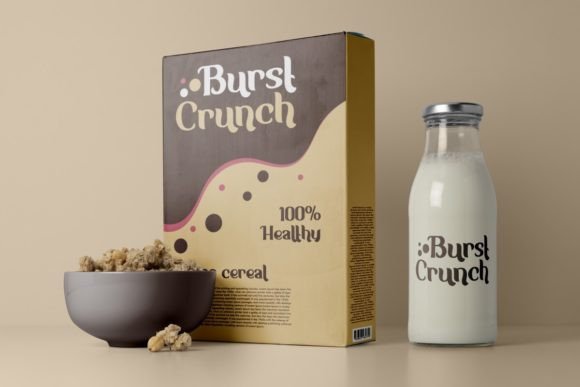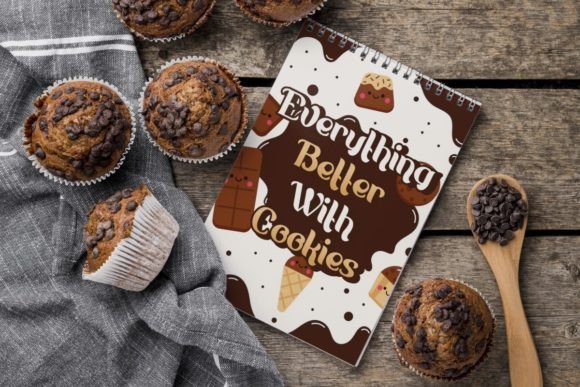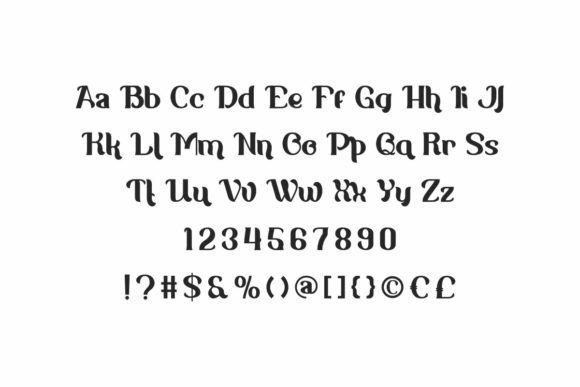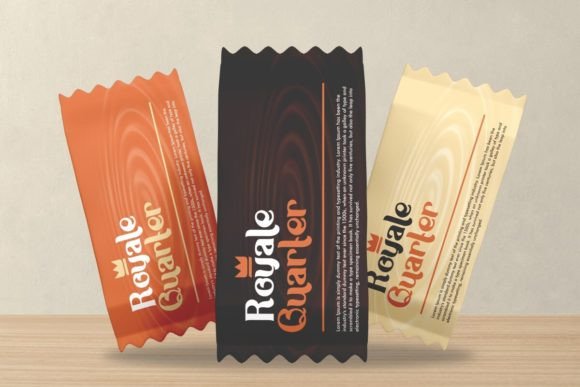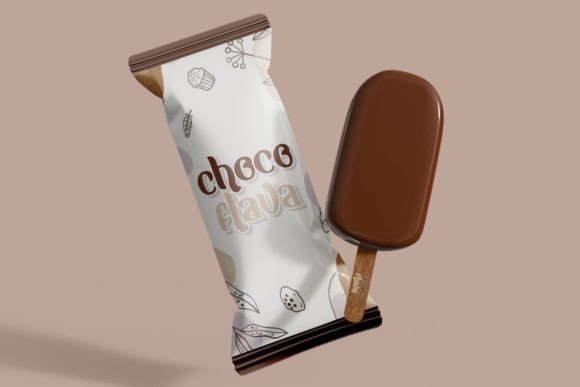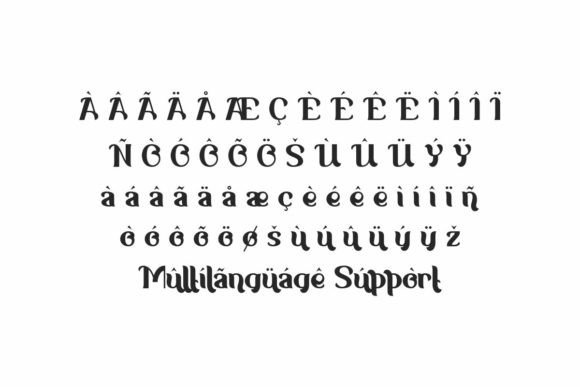
The Sweet Spot: Discovering Choco Truffle Font
I’ll never forget the time I was working on a branding project for a new dessert shop. My client wanted a font that was playful, yet sophisticated, and I was determined to find it. After hours of scrolling through font libraries, I stumbled upon Choco Truffle Font. It was love at first sight! 💕
This charming display font has a special fun style that’s perfect for adding a touch of whimsy to your designs. With its beautiful bold variation, Choco Truffle Font is sure to give your projects a fun and stylish look.
What Makes Choco Truffle Font Special?
So, what sets Choco Truffle Font apart from other fonts out there? Here are a few things I love about it:
- ✨ Playful and fun: Choco Truffle Font has a unique personality that’s perfect for designs that need a bit of whimsy.
- ✅ Bold variation: The font comes in a beautiful bold variation that’s perfect for making a statement.
- 💡 Versatile: Choco Truffle Font can be used for a wide range of designs, from billboards to brand logos, covers to headers, labels to packaging design, and more!
While Choco Truffle Font is an amazing font, it’s not perfect. Here are a few things to keep in mind:
- 🤔 Limited use cases: While Choco Truffle Font is versatile, it’s best suited for display purposes. It may not be the best choice for body text or smaller sizes.
- ⚠️ Some glyph limitations: While the font has a wide range of glyphs, there may be some limitations when it comes to special characters or non-English languages.
The Story Behind Choco Truffle Font
Choco Truffle Font was designed by a talented type designer who wanted to create a font that was both fun and sophisticated. Inspired by the rich, velvety texture of chocolate truffles, the designer aimed to capture the essence of this decadent treat in a font that would make designs stand out.
| Font Name | Choco Truffle Font |
| Author | NihStudio |
- Q: What is Choco Truffle Font?
- A: Choco Truffle Font is a playful display font with a special fun style that’s perfect for adding a touch of whimsy to your designs.
- Q: Is Choco Truffle Font available in different languages?
- A: Choco Truffle Font may have some limitations when it comes to special characters or non-English languages. Please check the font library for more information.
- Q: Can I use Choco Truffle Font for body text?
- A: While Choco Truffle Font is a beautiful font, it’s best suited for display purposes. It may not be the best choice for body text or smaller sizes.